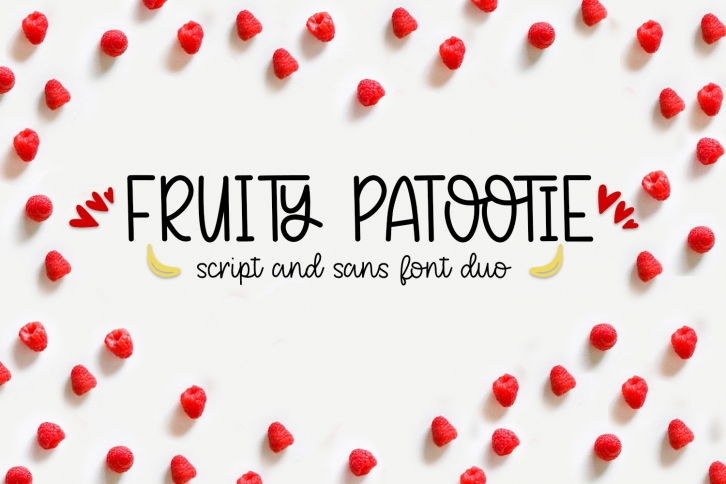
Fruity Patootie Font Duo Download
Fruity Patootie Duo is a great font that was designed by Kristy Hatswell. Imagine the amount of combinations you can create using this font! The archive is 9.10 MB and it was released on May 23, 2019. Fruity Patootie Duo looks beautiful on wedding invitations, greeting cards, logos, posters, labels, t-shirt designs, logos, business cards and is perfect for use in ink or watercolor works, fashion, magazines, packaging and food menus, children's books and more!